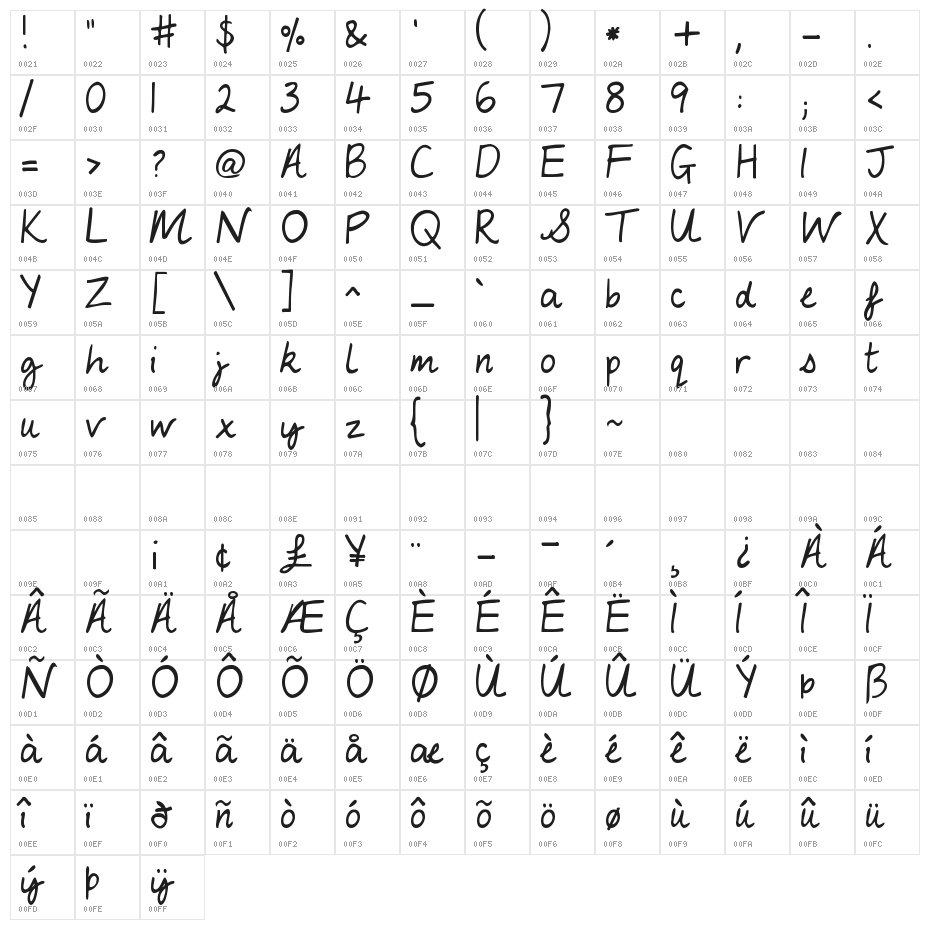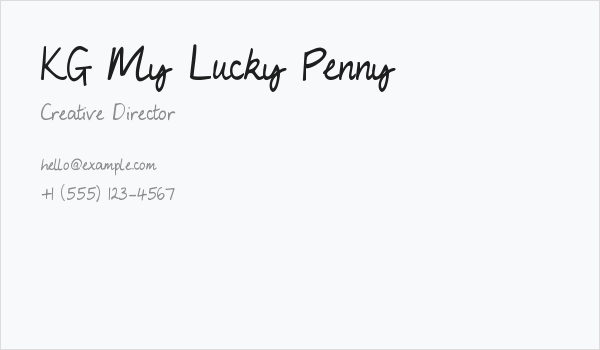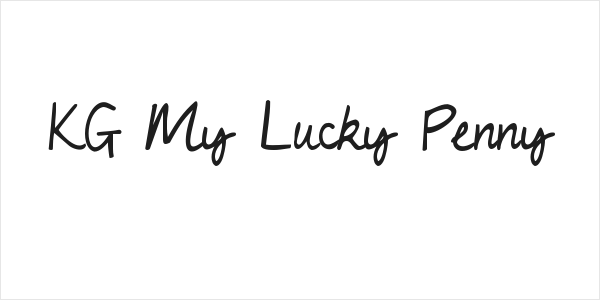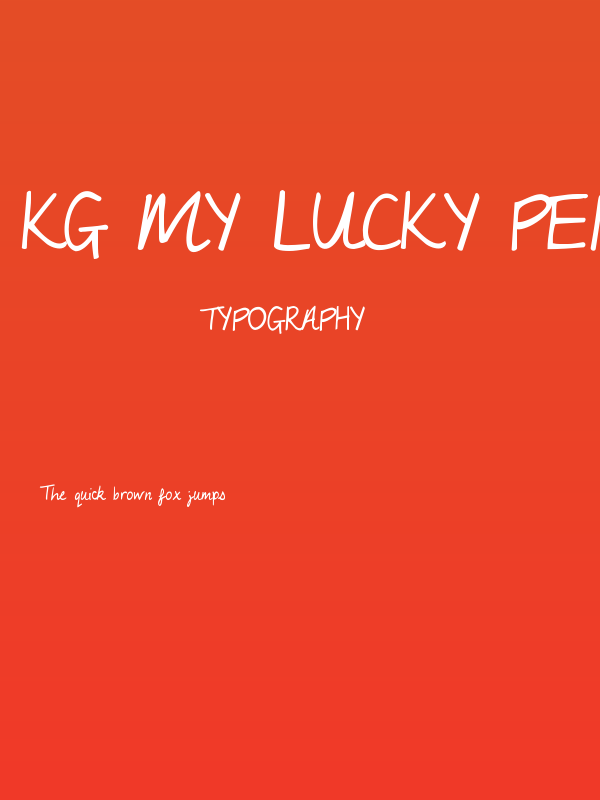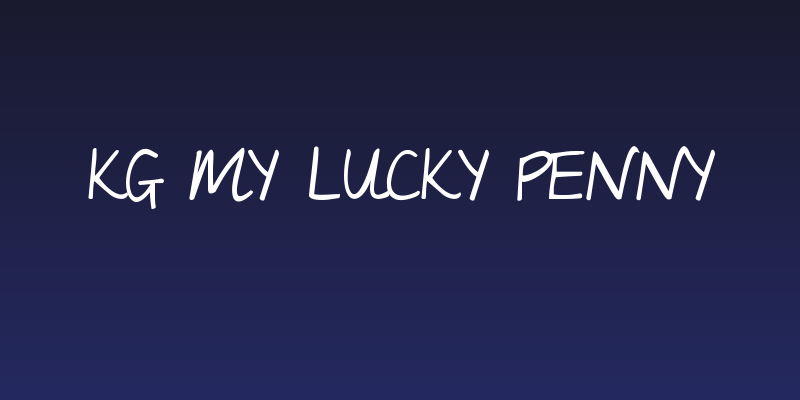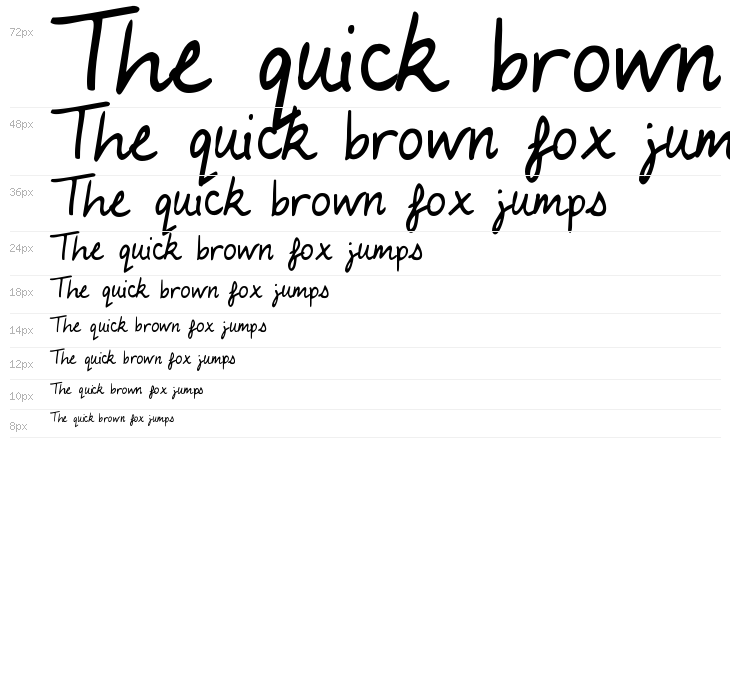
KG My Lucky Penny Font
KG My Lucky Penny Description
This font features a playful and casual handwritten style, characterized by its smooth, flowing curves and slightly irregular letterforms. The uppercase letters maintain a consistent height, while the lowercase letters exhibit a charming, informal touch with varied ascenders and descenders. The numerals are rounded and maintain the same playful aesthetic, ensuring readability while adding a touch of whimsy. Special characters are well-integrated, maintaining the overall cohesive style. The font's organic feel makes it suitable for projects that require a personal, approachable touch.
| Proposed Projects | Ideal for greeting cards, children's books, personal branding, and informal invitations. |